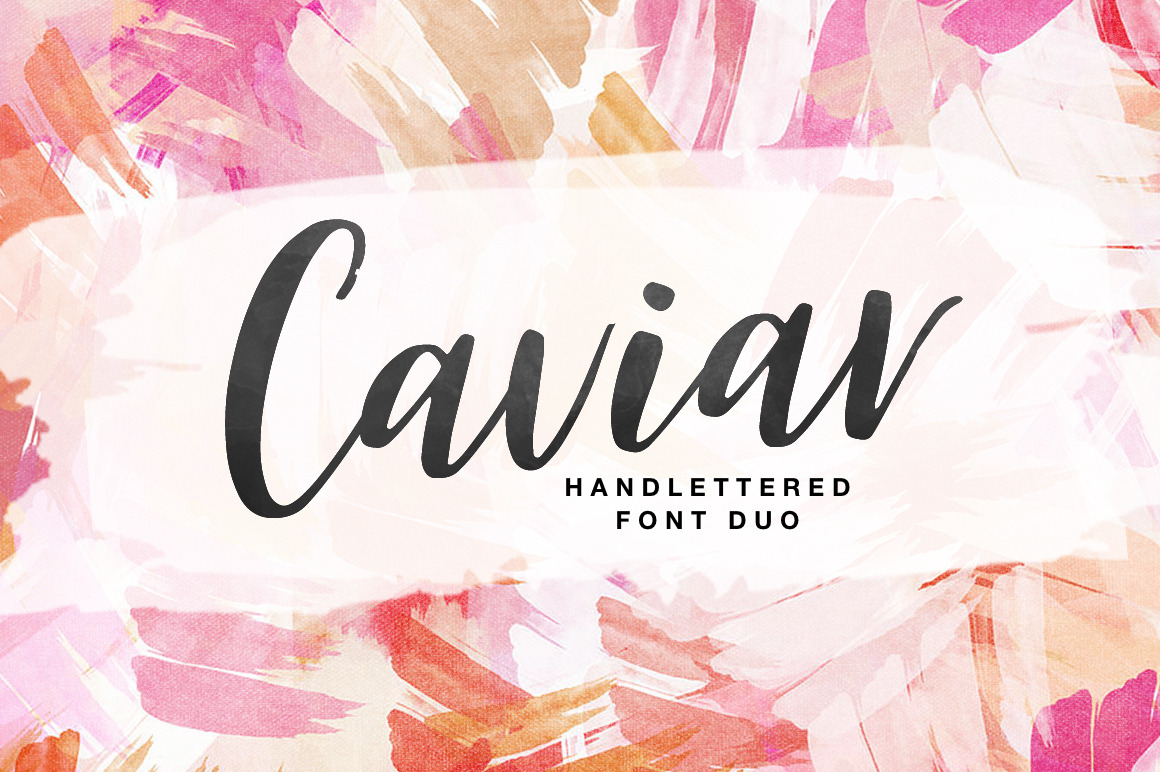
Caviar DUO font
Introducing Caviar DUO
It's a sweet hand lettered font DUO. This brush font is ideal for branding and decorate your any project.
This font are perfect for wedding postcard. Or you can create perfect and unique design of your logo, blog, stationery, marketing, magazines and more :)